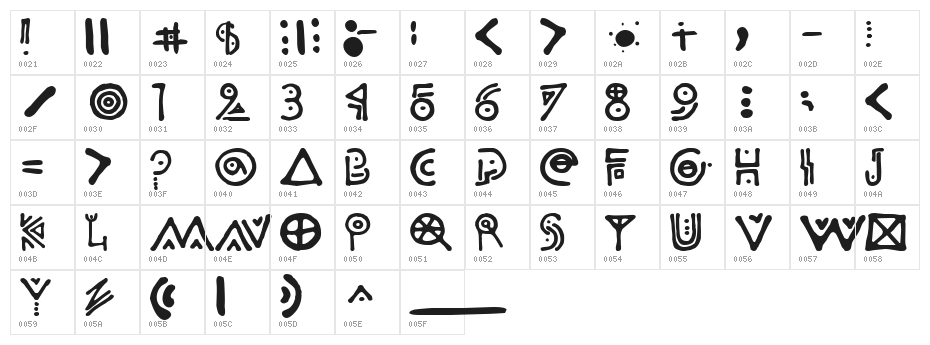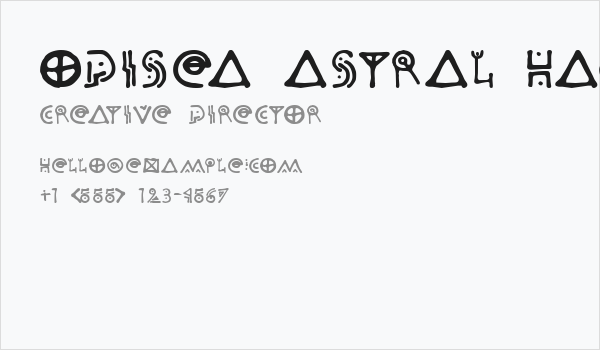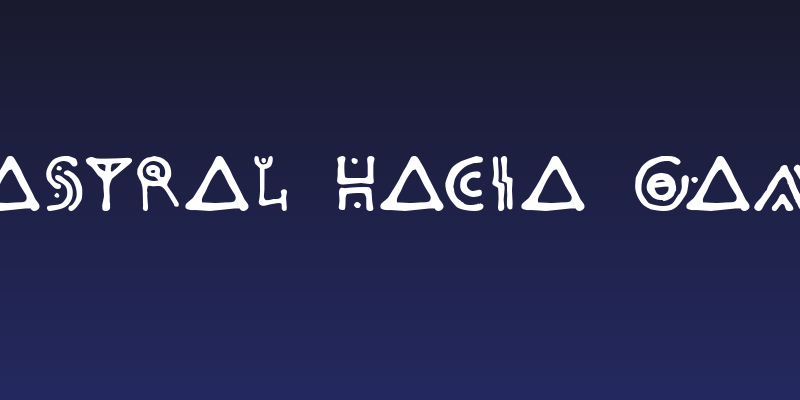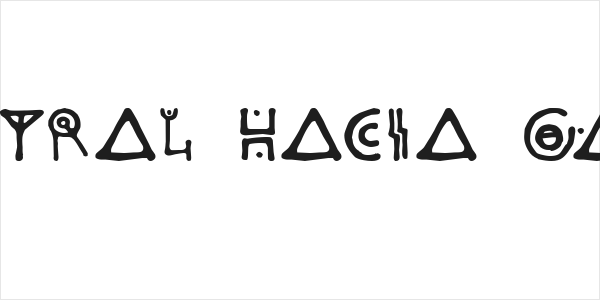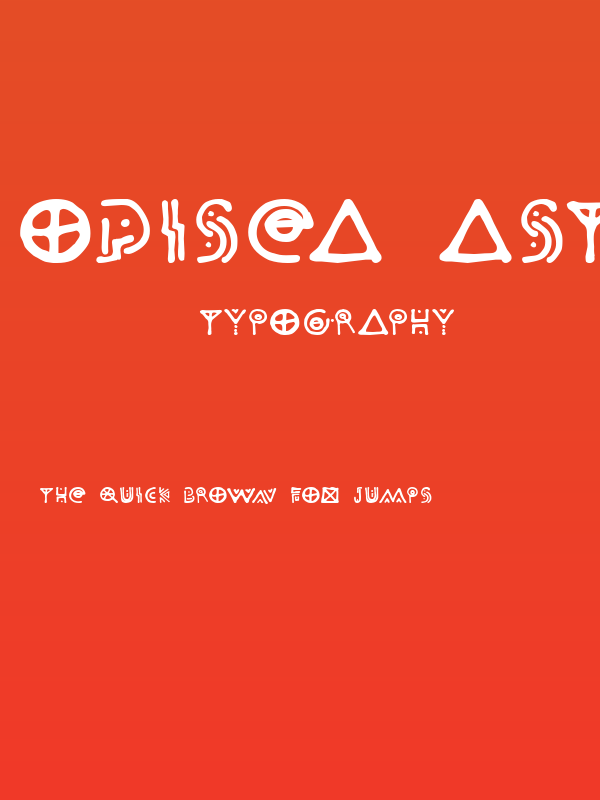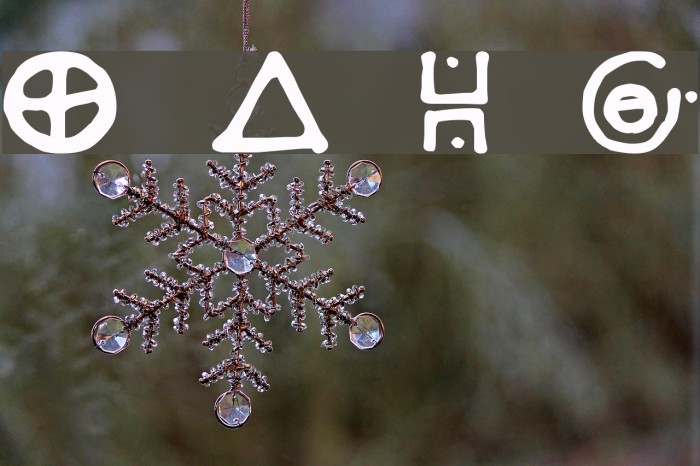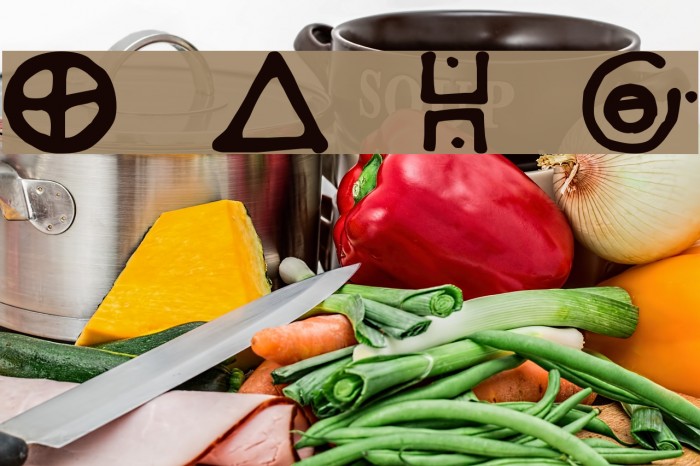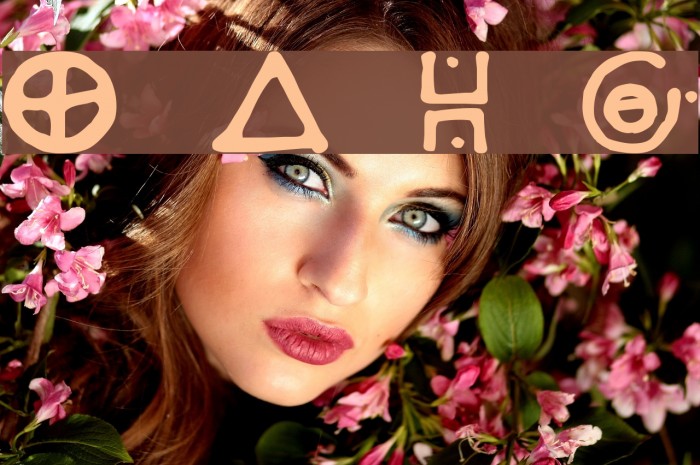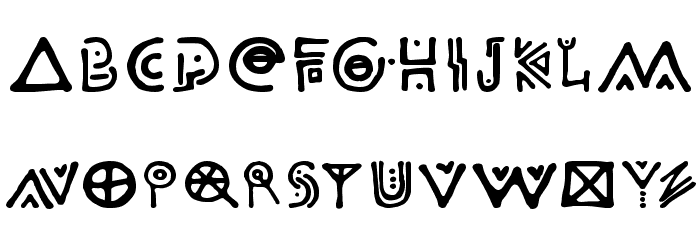
Odisea Astral Hacia Ganímedes Font
Odisea Astral Hacia Ganímedes Description
This font features a unique and playful design with a space-themed aesthetic. The characters are bold and exhibit a variety of geometric shapes, including circles, triangles, and lines, giving it a futuristic and abstract appearance. The letters and numbers are crafted with distinct, unconventional forms that evoke a sense of mystery and exploration. The special characters are equally creative, incorporating dots and lines that complement the overall style. This font is ideal for projects that aim to capture an adventurous or otherworldly feel.
| Overall Style | Futuristic, Abstract |
| Proposed Projects | Ideal for sci-fi book covers, space-themed event posters, video game titles, and creative branding projects. |